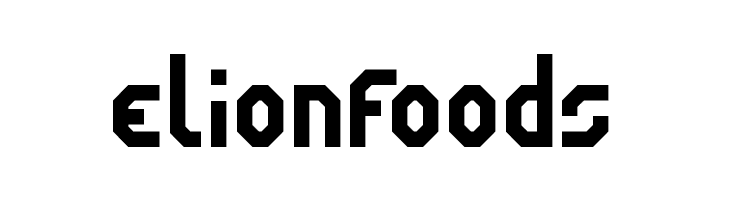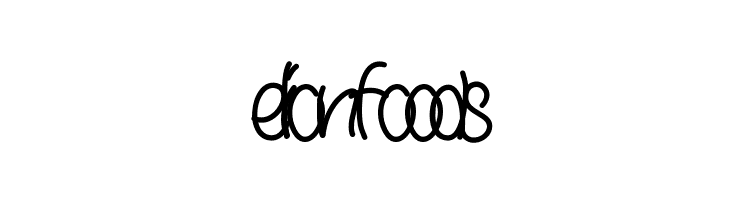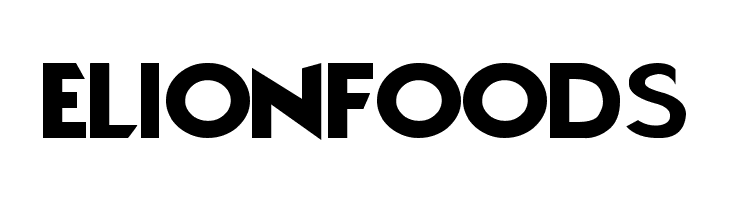
• Valerie
A playful, handwritten font with fluid and dynamic strokes.
• VampyrsMK
A playful, hand-drawn font with a whimsical and informal style.
• VEGESIGNES Bold
A bold, geometric font with a futuristic and modern aesthetic.
• Velarah Regular
A bold, geometric font with a futuristic and modern design.
• VeRsaLiTa&
A bold, modern font with geometric structure and consistent strokes.
• VeRsaLiTa&
A bold, modern font with geometric and elegant curves.
• VierfachRund
Abstract symbols with geometric and star-like designs.
• Virginie
A dynamic handwritten font with fluid strokes and a playful character.
• Wedding Garden
A whimsical, nature-inspired font with hand-drawn, twig-like characters.
• WorstPaintJobEver
A bold, distressed font with a grungy, paint-splattered style.
• XamStern
A highly stylized, abstract font with sharp, angular lines and a chaotic aesthetic.
• Xmas Shopping
A modern, double-line font with a dynamic and stylish design.
• Yana
• Young Frankenstein 3D Italic
A bold, 3D italic font with jagged edges, ideal for horror-themed designs.
• Young Frankenstein 3D Regular
A bold, playful 3D font with a whimsical, comic book style.
• Young Frankenstein Condensed
A bold, condensed font with a jagged, horror-inspired style.
A bold, condensed italic font with sharp, jagged edges for dramatic impact.